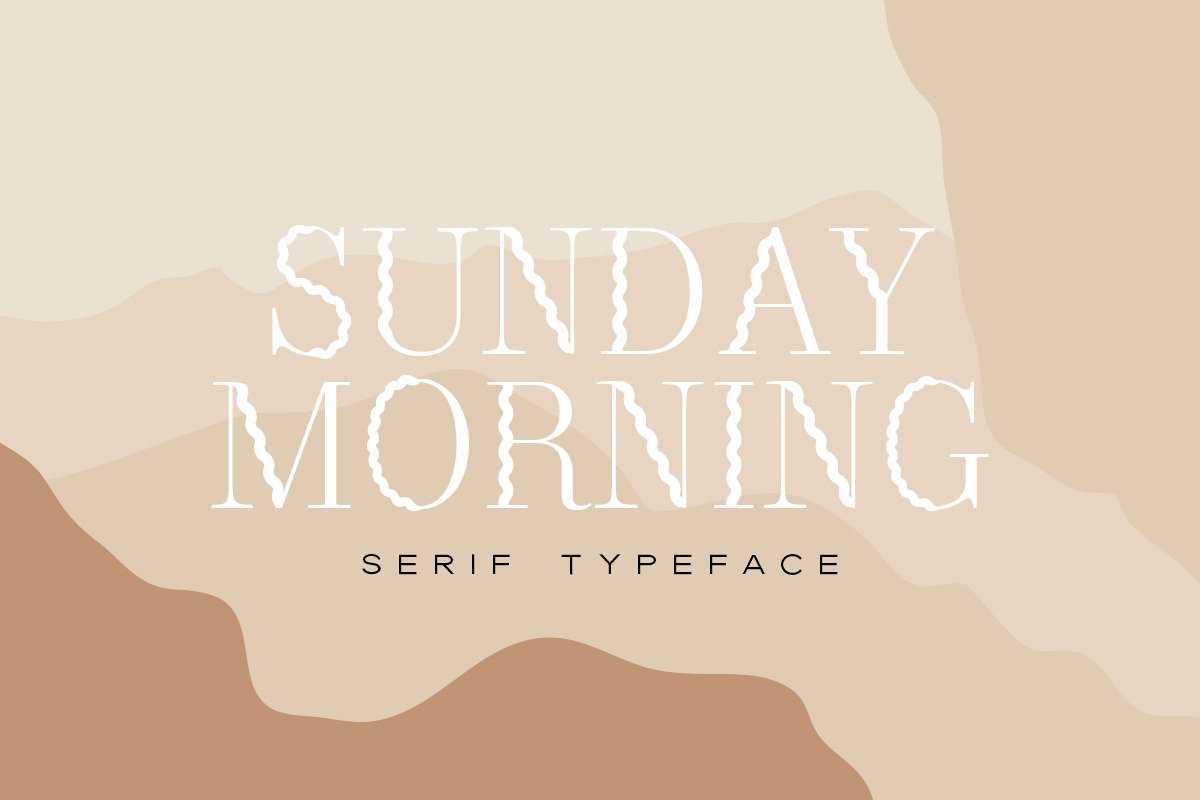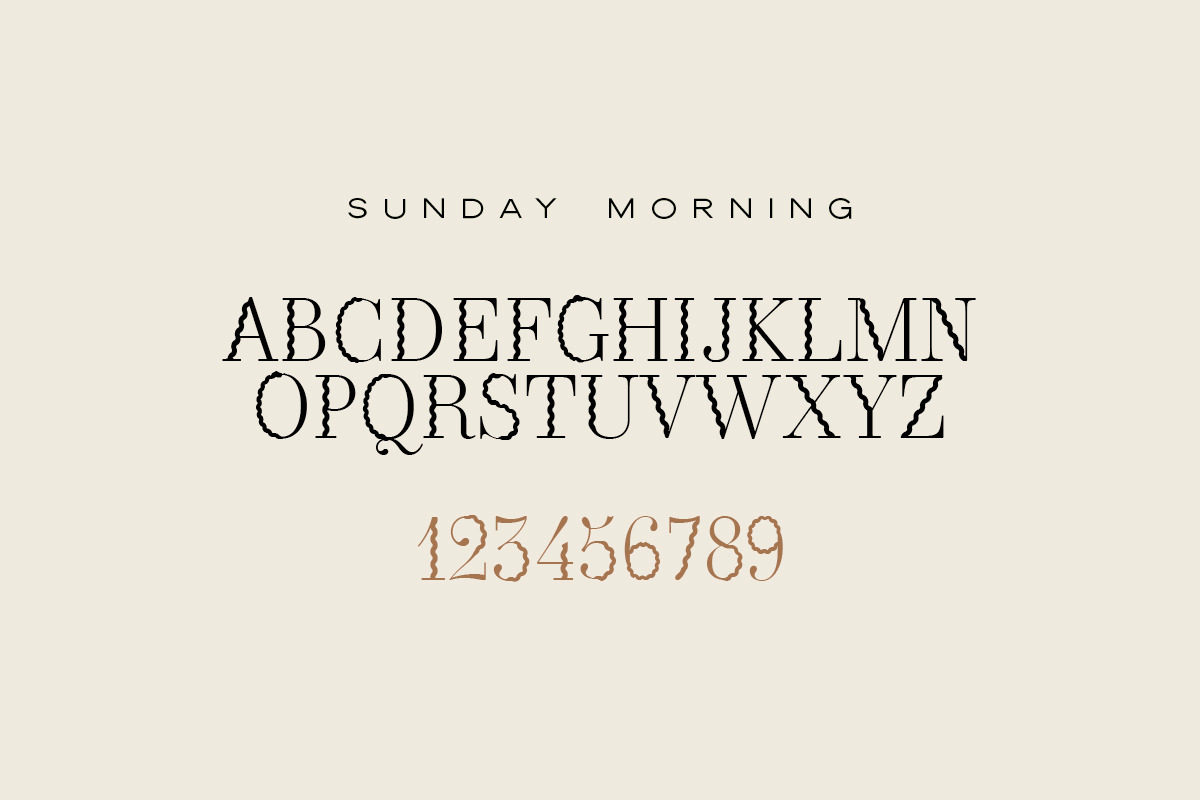
Sunday morning serif typeface
The ๐ฆ๐๐ป๐ฑ๐ฎ๐ ๐บ๐ผ๐ฟ๐ป๐ถ๐ป๐ด typeface is a new serif font with a zig zag effect that can be used for posters, editorial layouts, packaging and logos. The ๐ฆ๐๐ป๐ฑ๐ฎ๐ ๐บ๐ผ๐ฟ๐ป๐ถ๐ป๐ด font will bring a touch of joy and fun and gives your work a unique, creative edge. Add a bit of class to your designs by combining the ๐ฆ๐๐ป๐ฑ๐ฎ๐ ๐บ๐ผ๐ฟ๐ป๐ถ๐ป๐ด typeface with a sans serif typeface. It pairs perfectly with any modern Sans-Serif font, such as Milan (Jen Wagner Co) which is used in the preview. This font only includes capital letters with punctuation. All characters are shown in the second image. File format for this download is .ttf